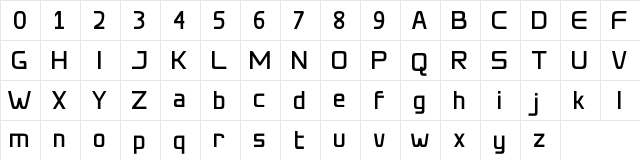
Mitsuha Regular
| Designer | Dida Ahluddin |
Design Context for Mitsuha Typeface
Mitsuha takes a measured approach to typography — its balanced proportions and neutral character make it a reliable workhorse for both digital and print work.